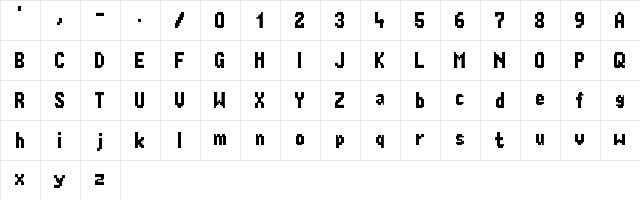
Combino Klein Regular
| Designer | Jeffrey Visser |
Design Context for Combino Klein Typeface
Combino Klein is a composed and adaptable typeface that performs quietly and consistently across a wide range of design contexts.
Pro Tip: Pair Combino Klein with a font of contrasting weight or personality to build a more expressive typographic hierarchy.